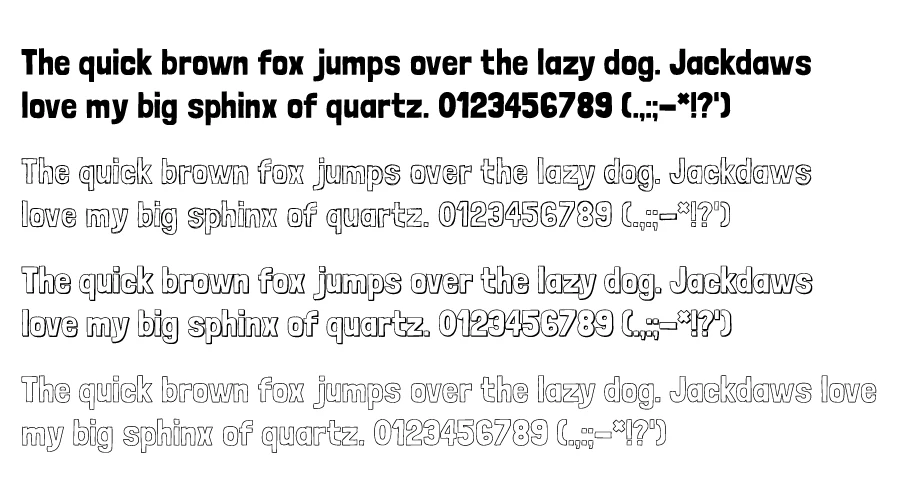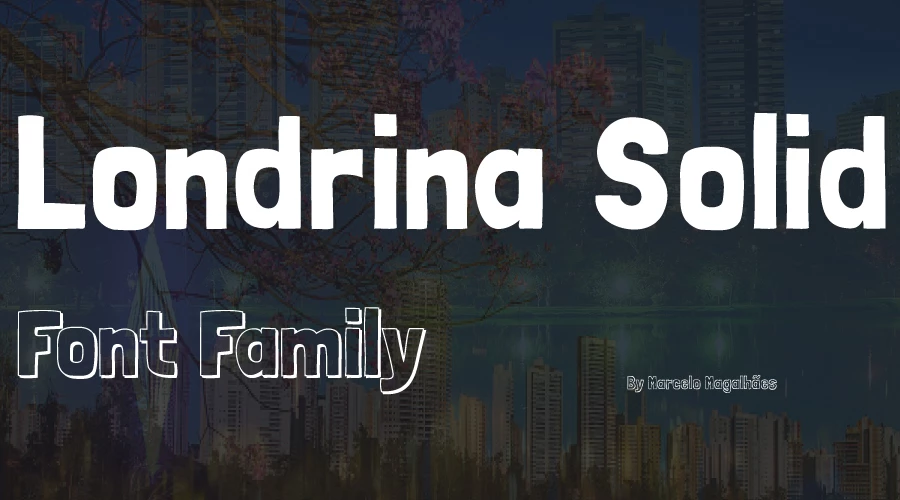
The Londrina Solid Font Family is a gorgeous display font designed by Marcelo Magalhaes. The typeface was named “Folk” and came with only uppercase alphabets. Londrina is composed of four typefaces: Londrina Solid, Londrina Shadow, Londrina Outline, and Londrina Sketches. You can generate unique effects by combining the main style, Solid, with the other typefaces.
Londrina takes its inspiration from the streets of Sao Paulo, Brazil; Urban confusion. The designer recognized the potential to build a typeface that might recall the sensations associated with the writing used daily in his city’s informal communication and turned it into a typeface family that included lowercases.
The Londrina Solid contains 227 defined characters and 185 unique glyphs. It is a Unicode typeface family that supports languages that use Latin scripts and their variants. However, it can help with other variants as well.
The Londrina solid font can be used in logos, branding projects, homeware designs, product packaging, mugs, quotes, posters, shopping bags, t-shirts, book covers, name cards, invitation cards, greeting cards, labels, photography, watermark, special events, and so on are all possible uses for the font. The typeface is also an excellent choice for coding.
| Name | Londrina Solid Font Family |
| Style | Display |
| Designer | Marcelo Magalhães |
What type of font it is?
Ans: It is a display font.
Who’s the designer of this font?
Ans: The font is designed by Marcelo Magalhães.